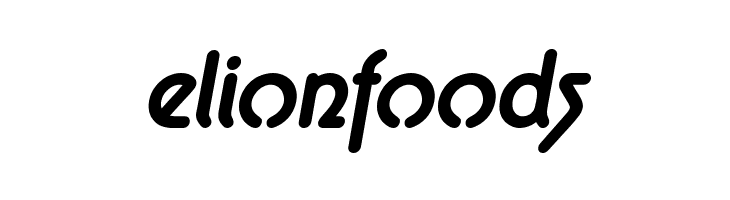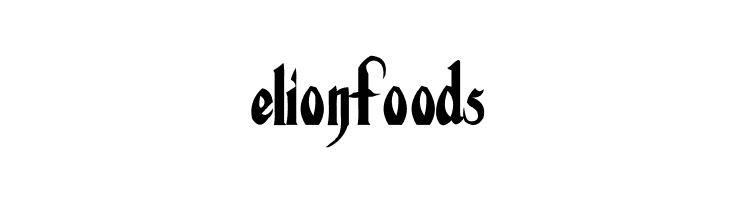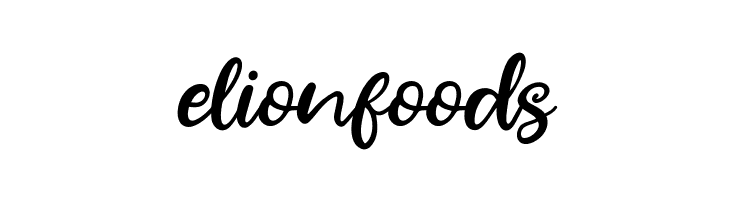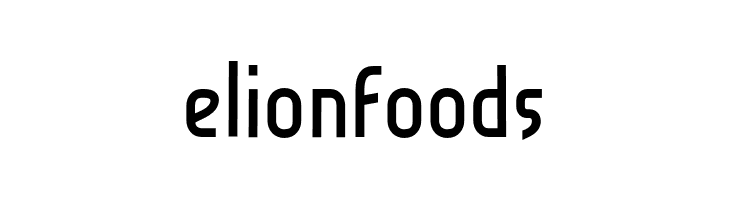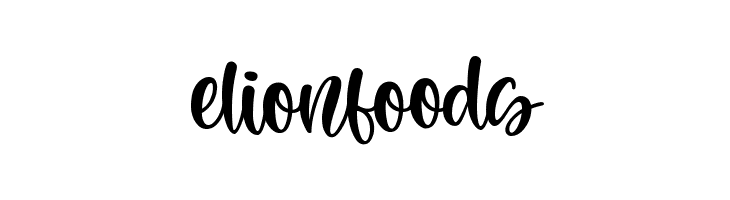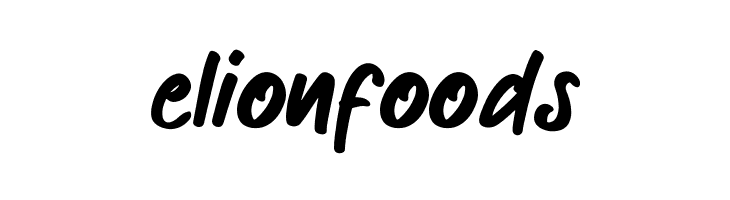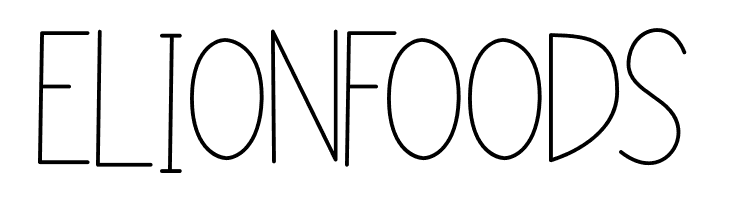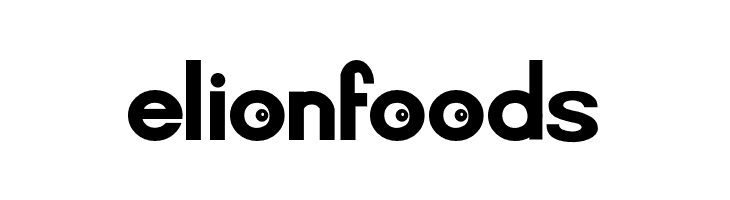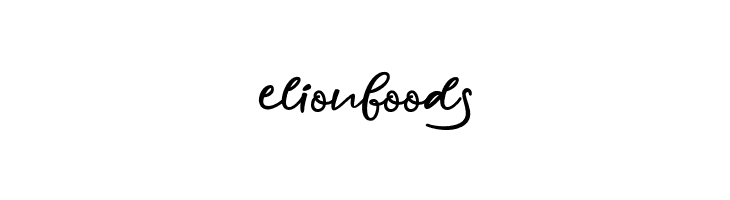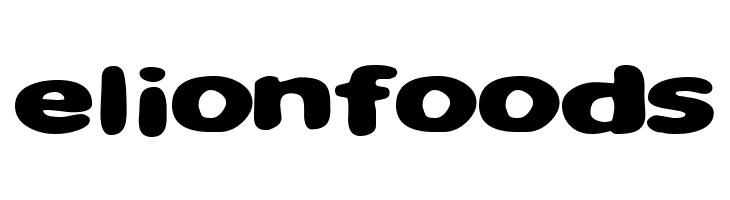
A bold, italicized font with smooth curves and a dynamic, playful style.
A decorative and whimsical font with intricate flourishes and embellishments.
A lively, flowing script font with elegant curves and bold presence.
A modern, angular font with a dynamic and energetic style.
A bold, expressive script font with flowing, connected strokes.
A bold, dynamic script font with a handwritten, energetic style.
A decorative, nature-inspired font with playful leaf embellishments and a handwritten style.
A bold, modern font with geometric uppercase and traditional sans-serif lowercase.
A lively handwritten font with dynamic strokes and a playful yet elegant style.
A playful, bold font with rounded, bubbly characters.